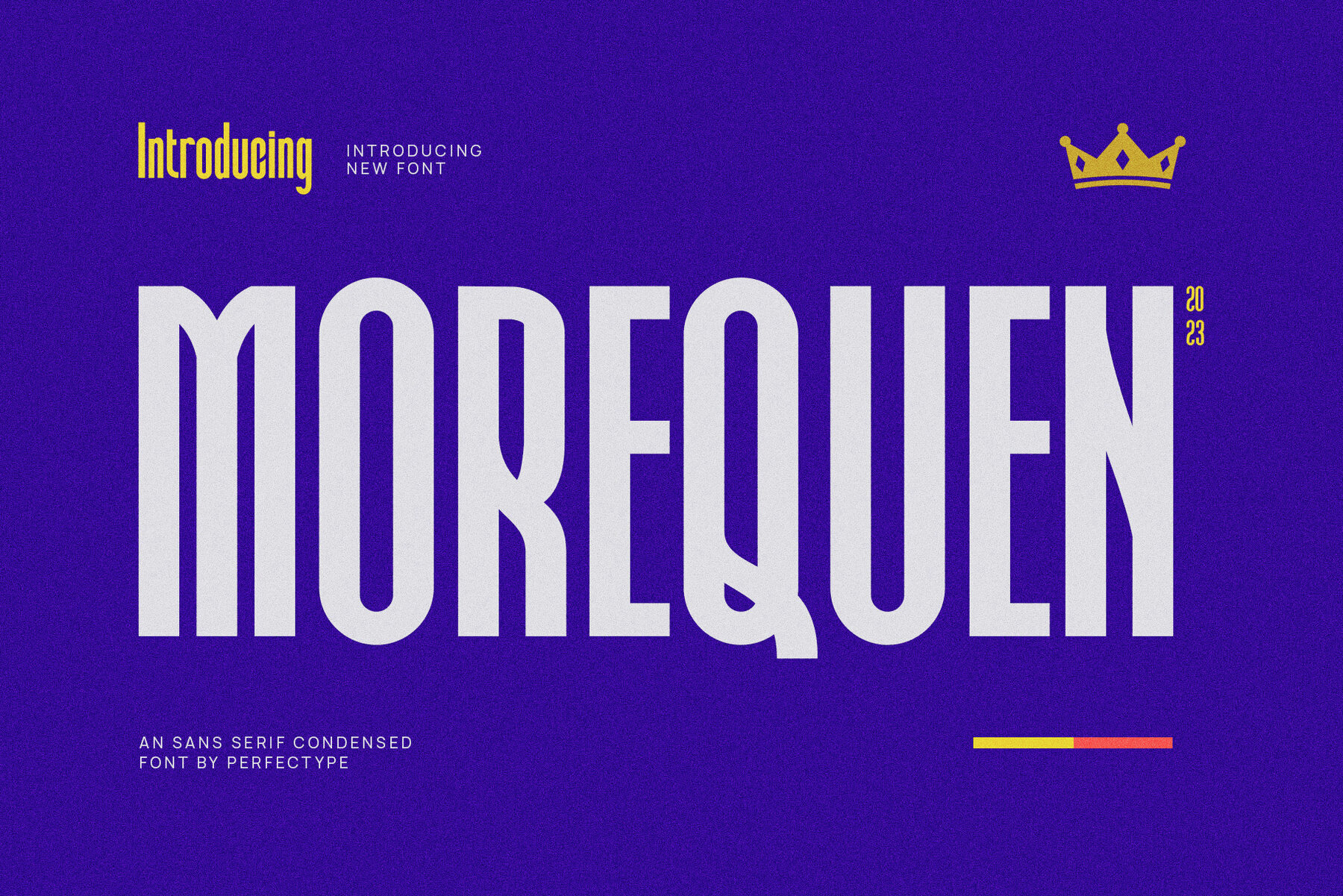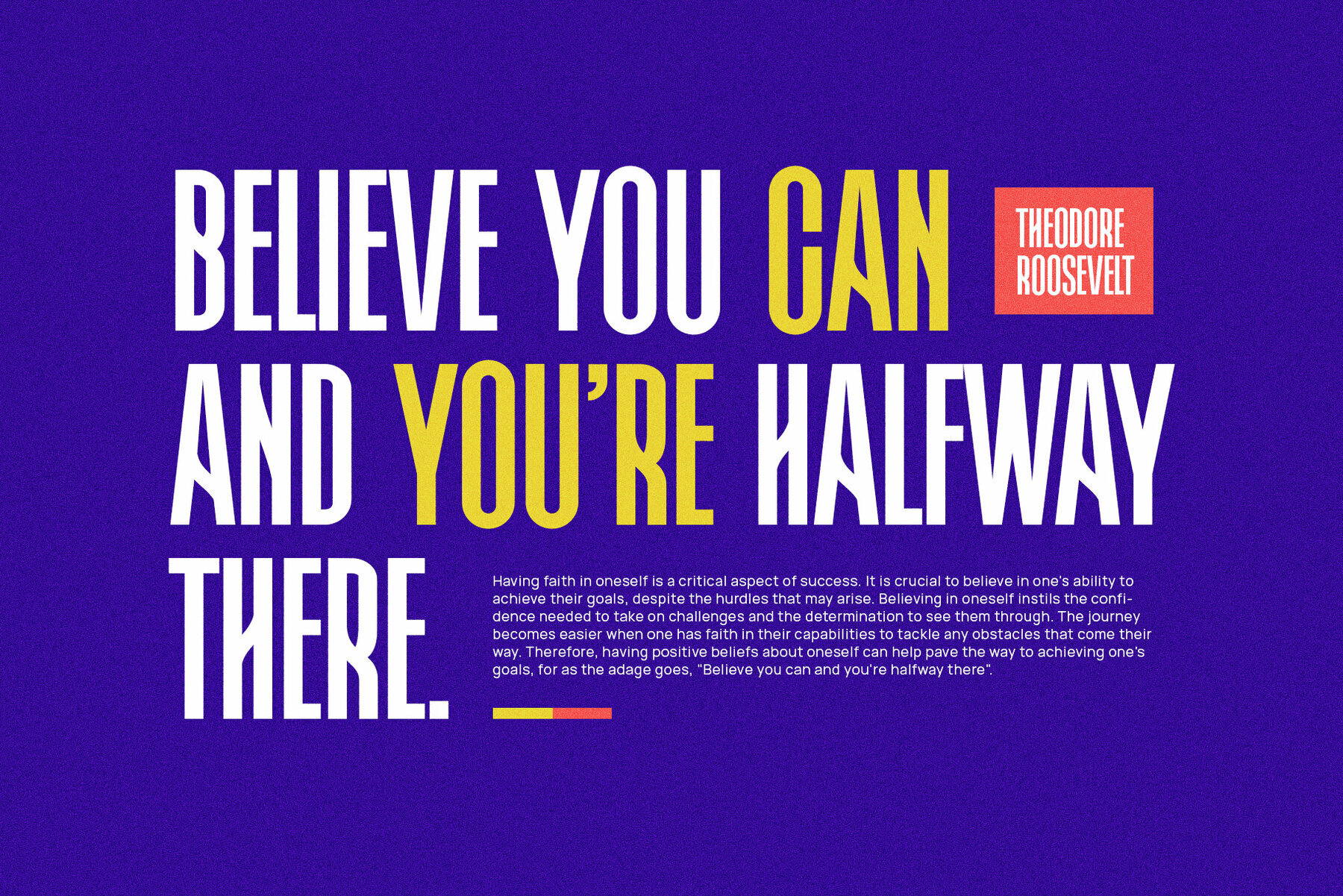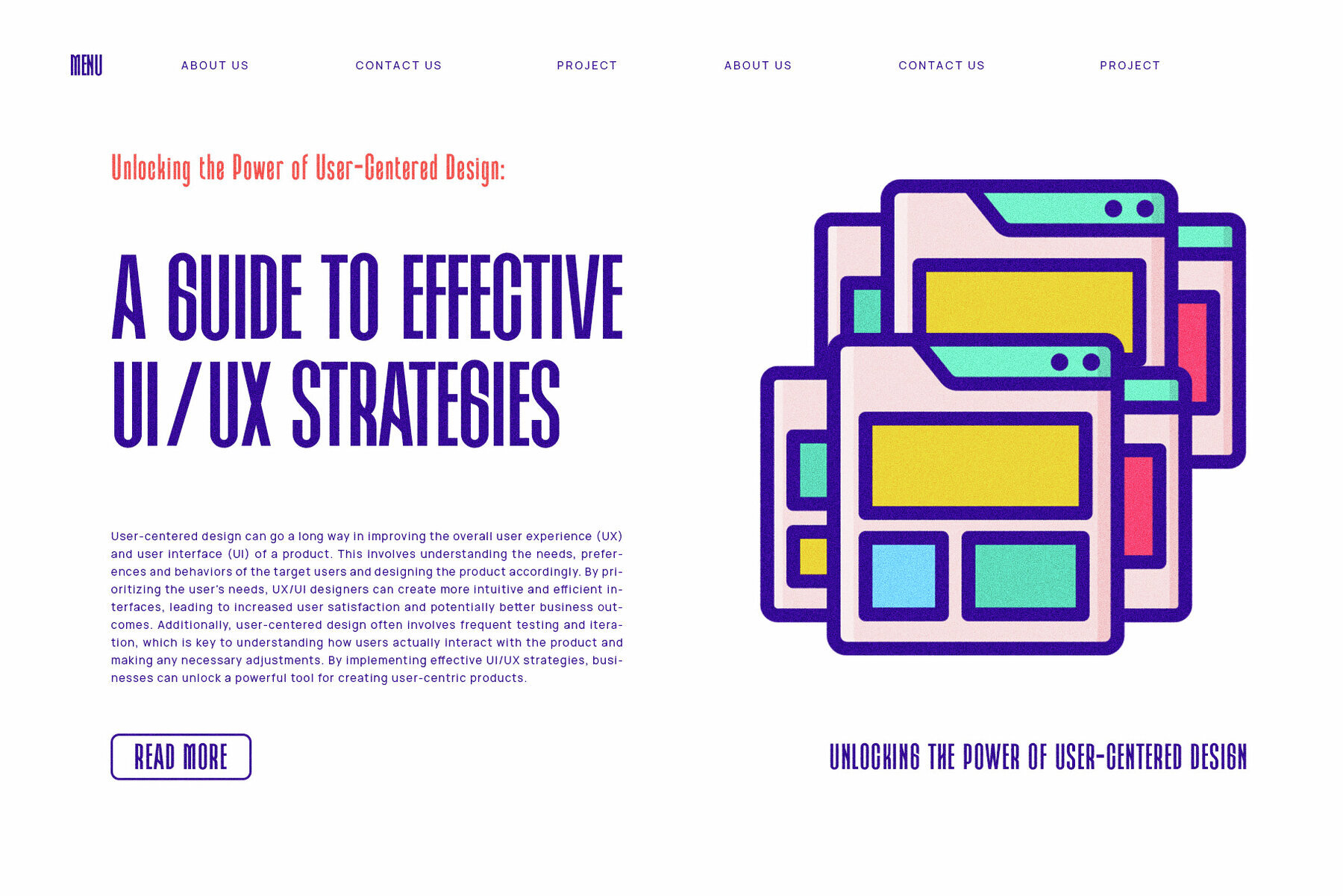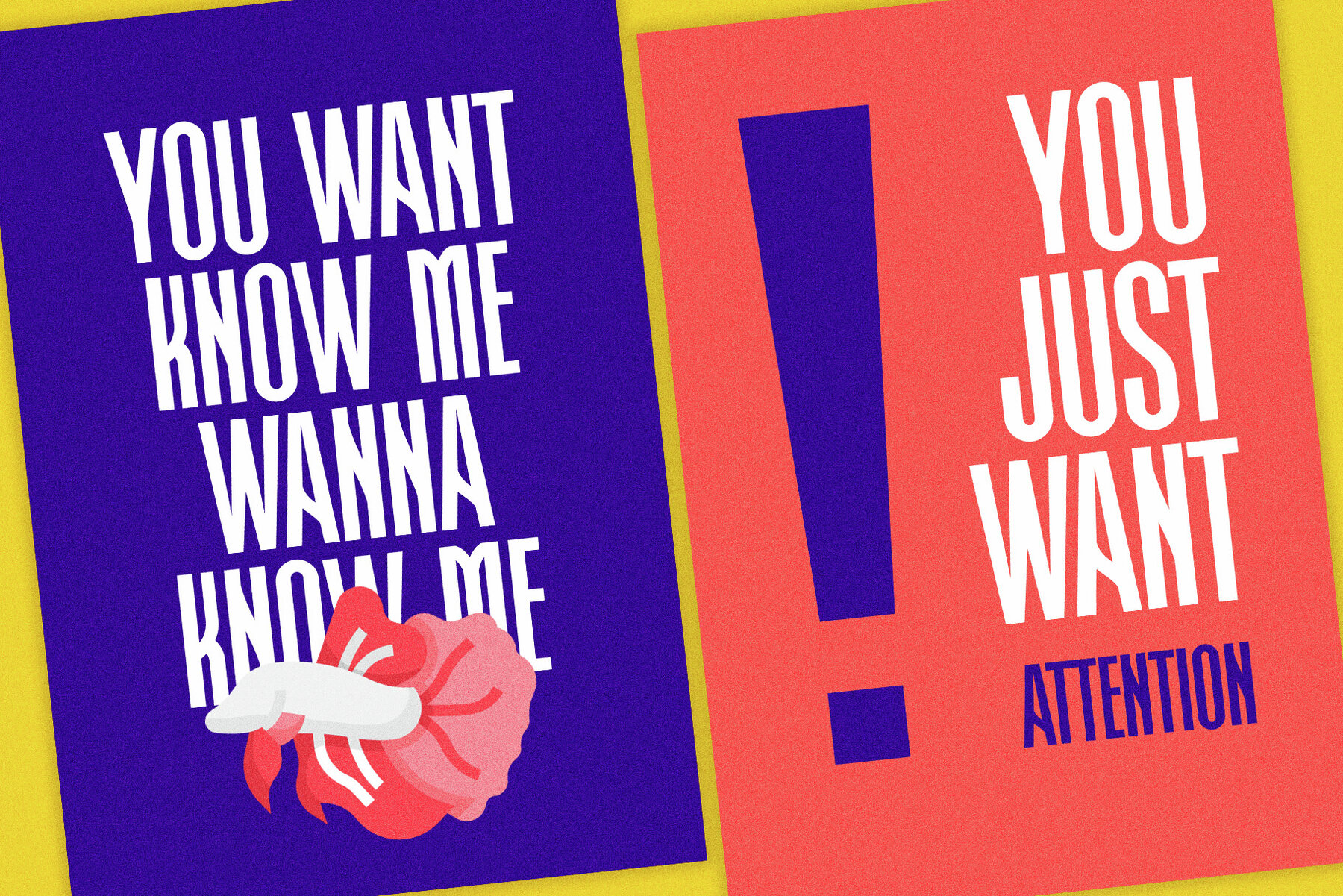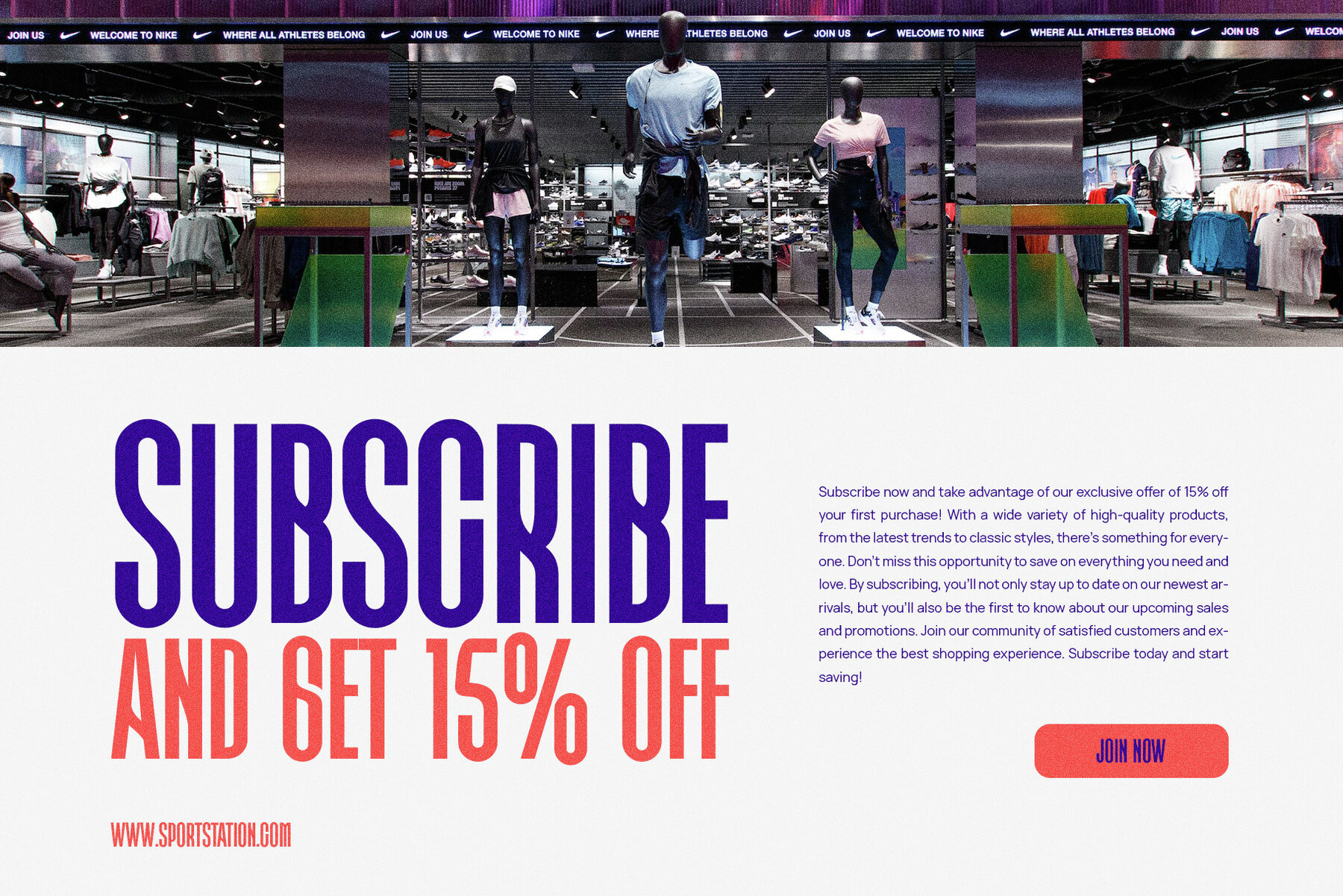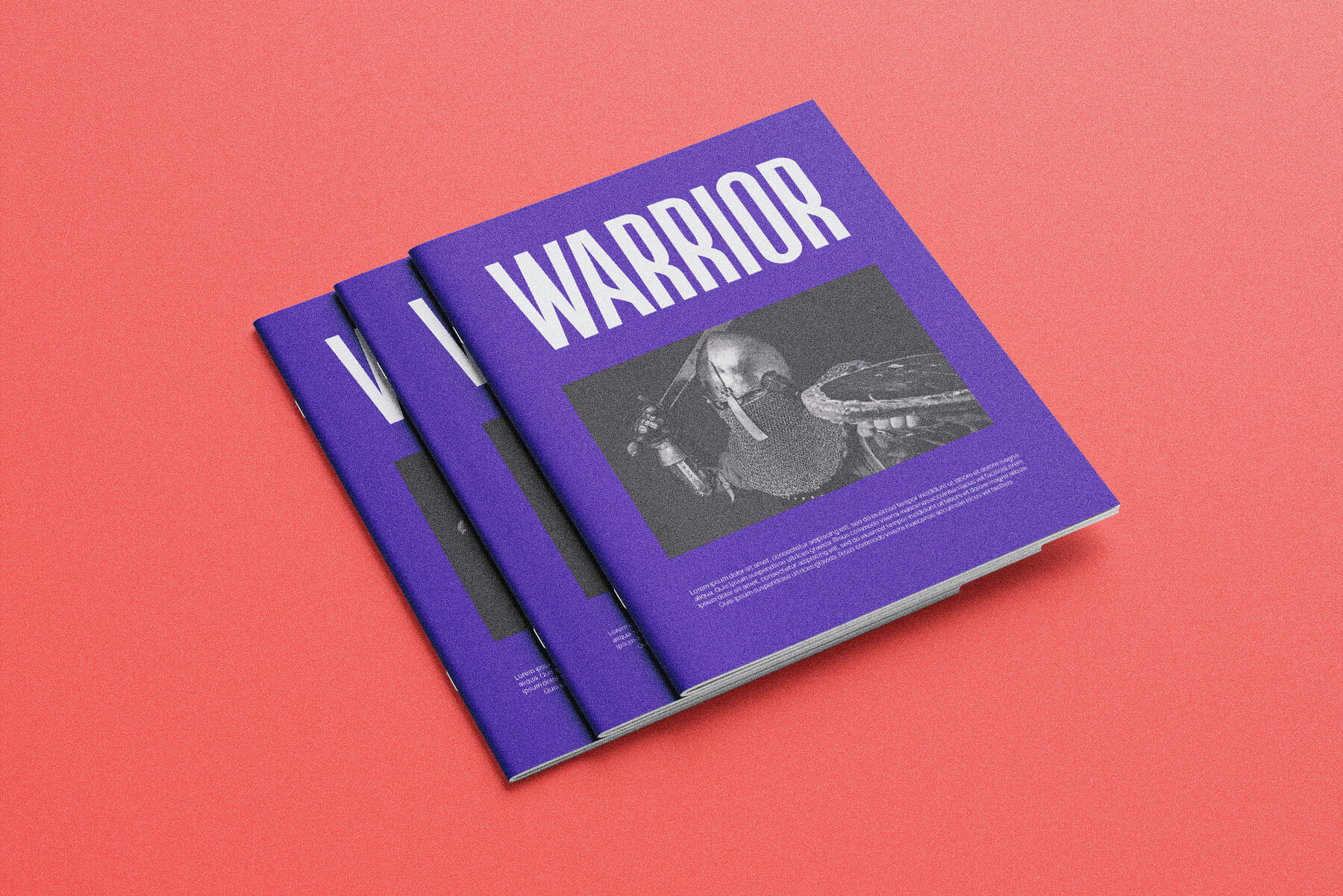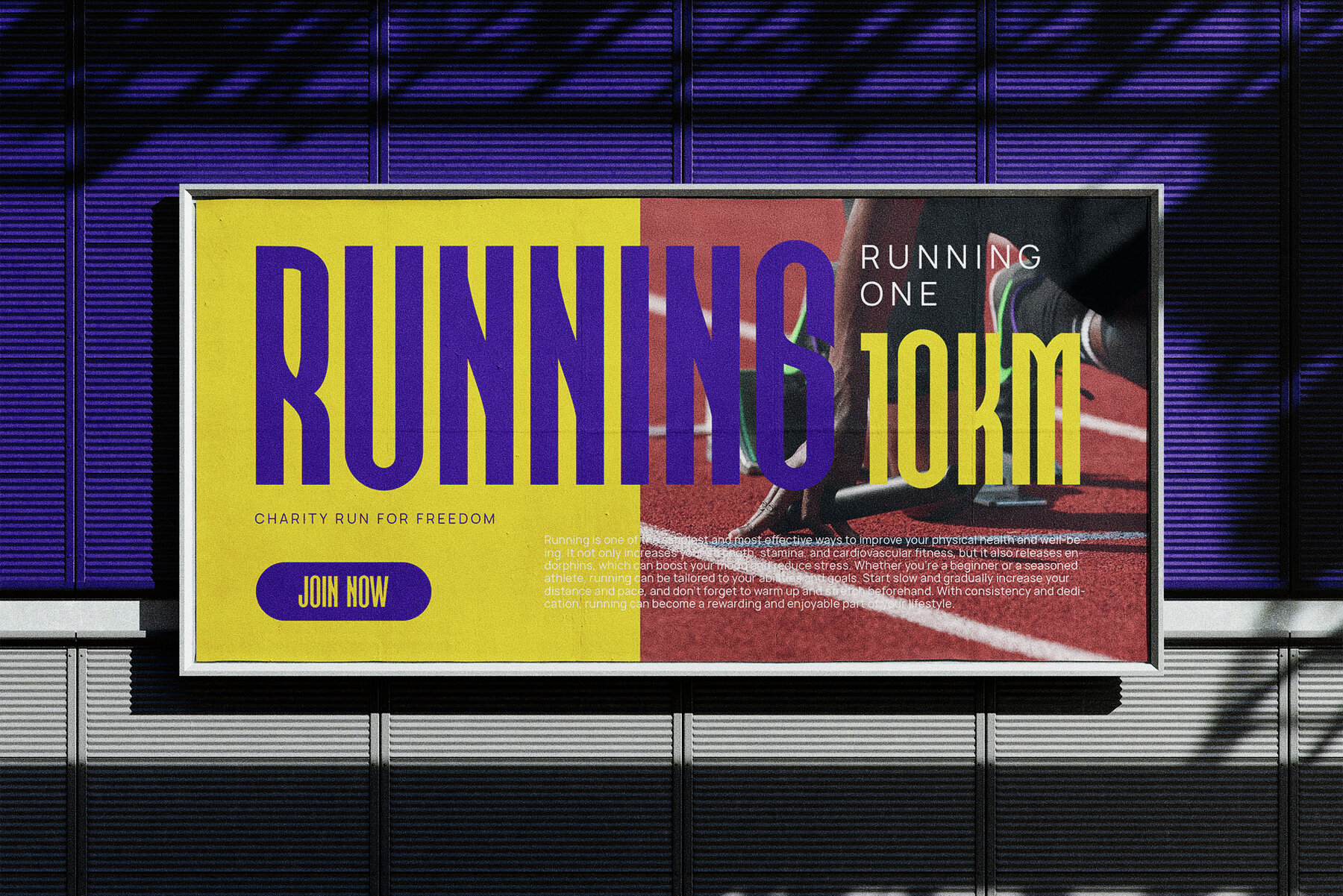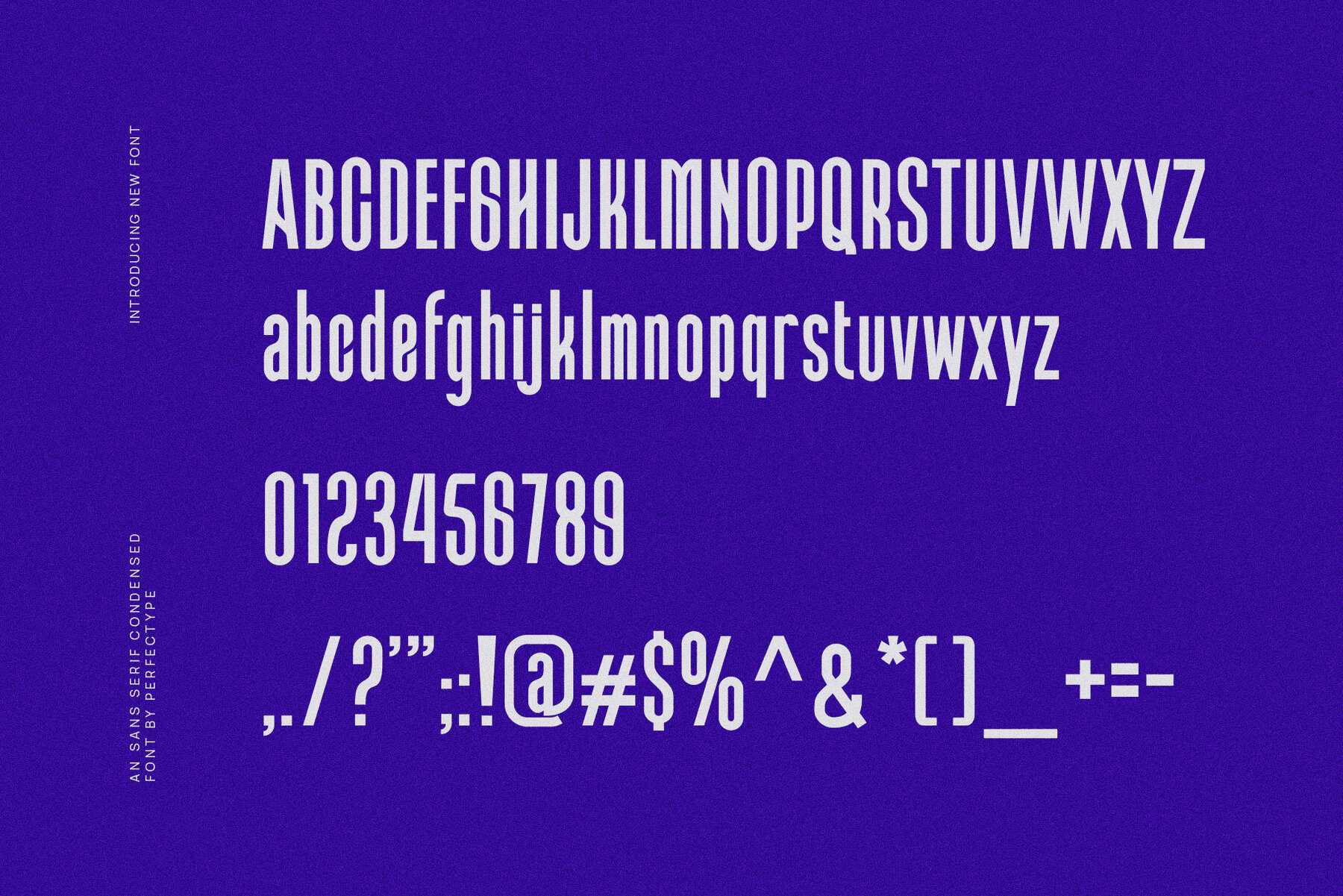
Morequen Font
Morequen Regular
Morequen is a sans serif font crafted by Perfectype Studio, designed for balance and exceptional readability. The design process focused on neatness and detail, ensuring it meets a wide range of branding needs. Whether you are creating brochures, videos, or advertisements, this font provides a versatile solution for your graphic design projects.Morequen: Balanced Sans Serif with High Readability